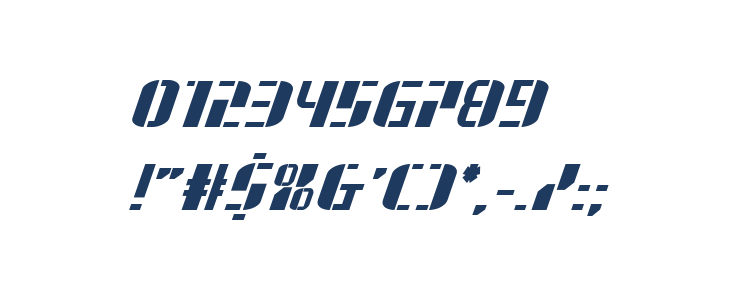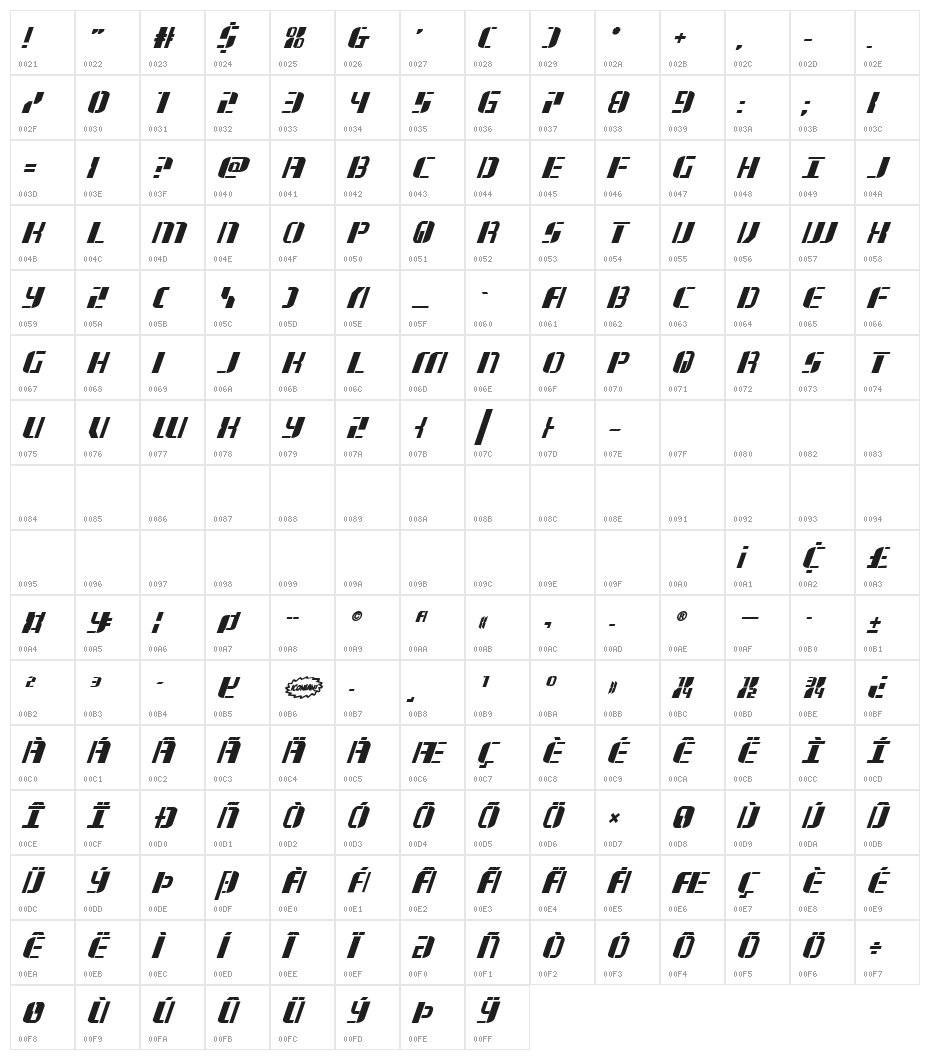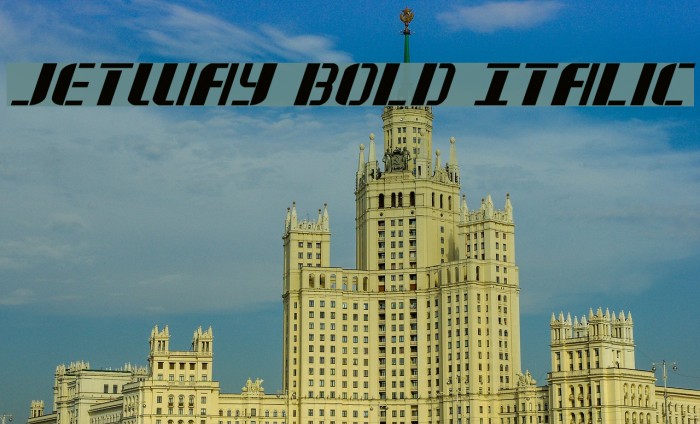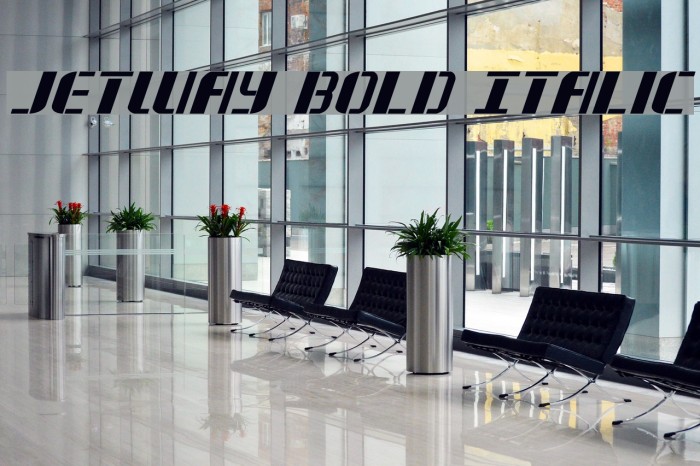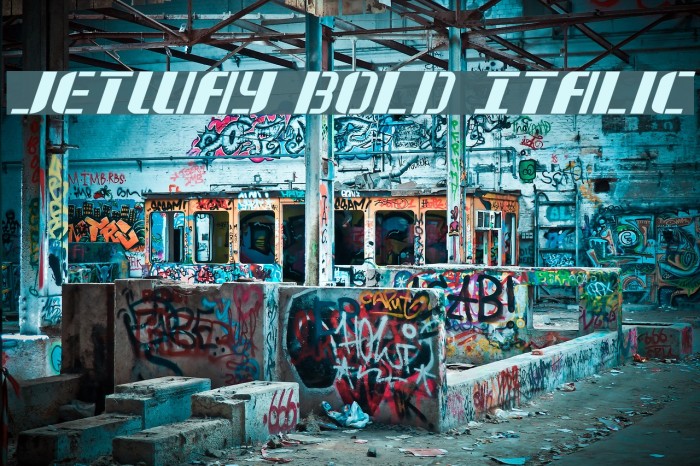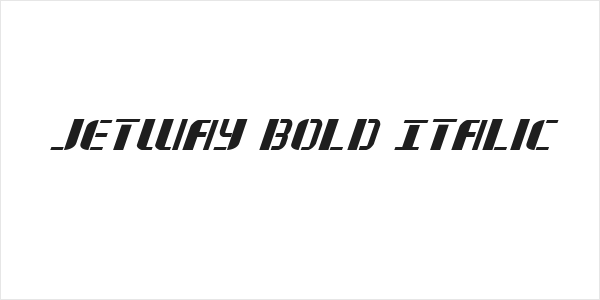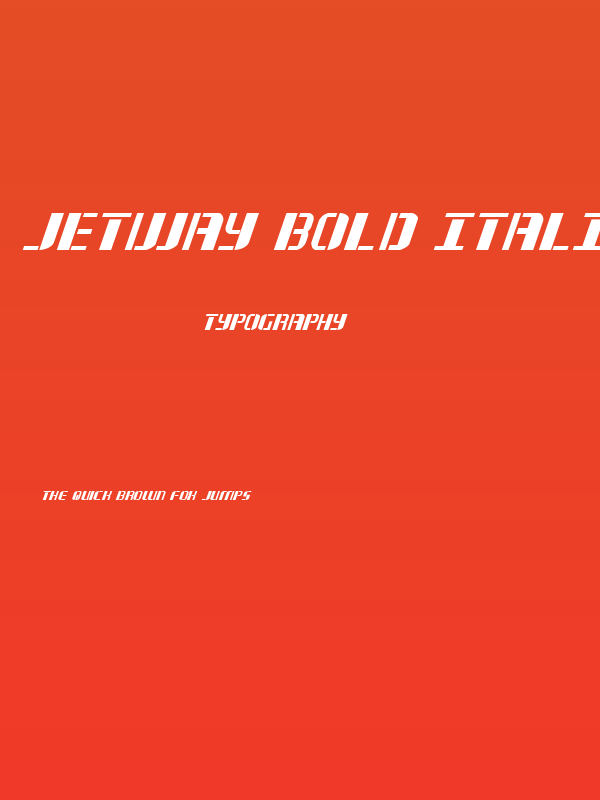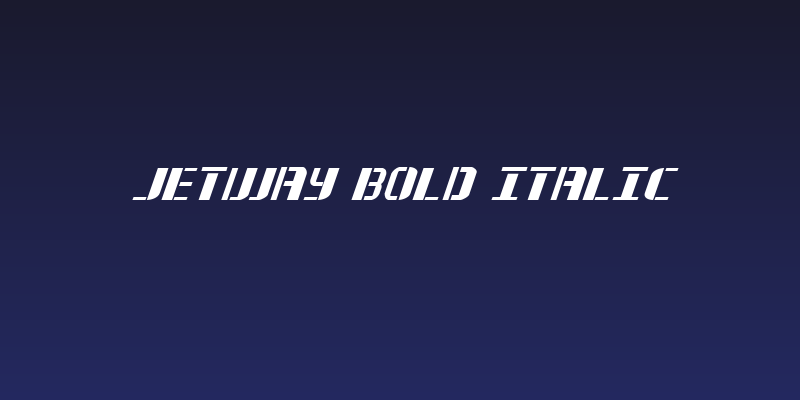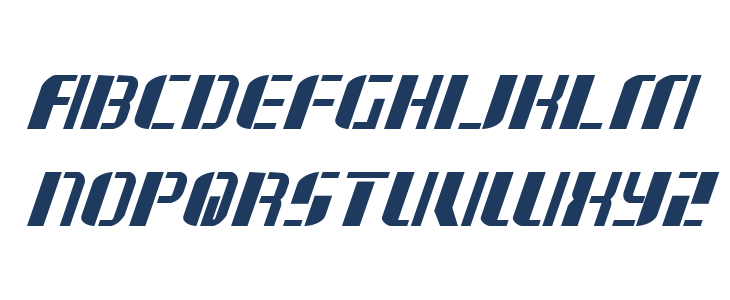
Jetway Bold Italic Font
Jetway Bold Italic Description
This font features a bold and italic style with a distinct slant, giving it a dynamic and forward-moving appearance. The characters are designed with sharp, angular cuts, creating a sense of speed and modernity. The uppercase and lowercase letters maintain a consistent style, with the uppercase being slightly more pronounced. Numbers and special characters follow the same design principles, ensuring uniformity across all glyphs. The font's boldness and italicization make it stand out, suitable for attention-grabbing headlines or titles. Its unique style is both futuristic and edgy, ideal for projects that require a strong visual impact.
| Proposed Projects | Ideal for branding, sports team logos, automotive designs, and futuristic-themed projects. |